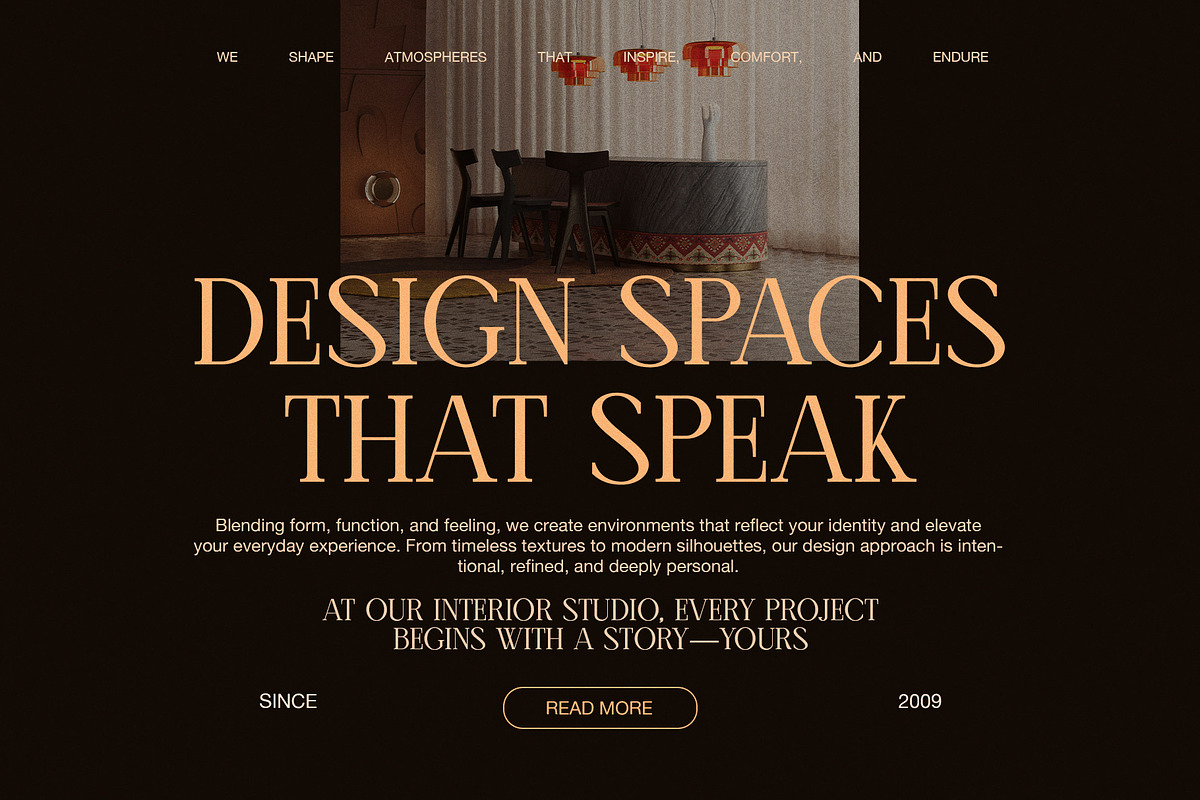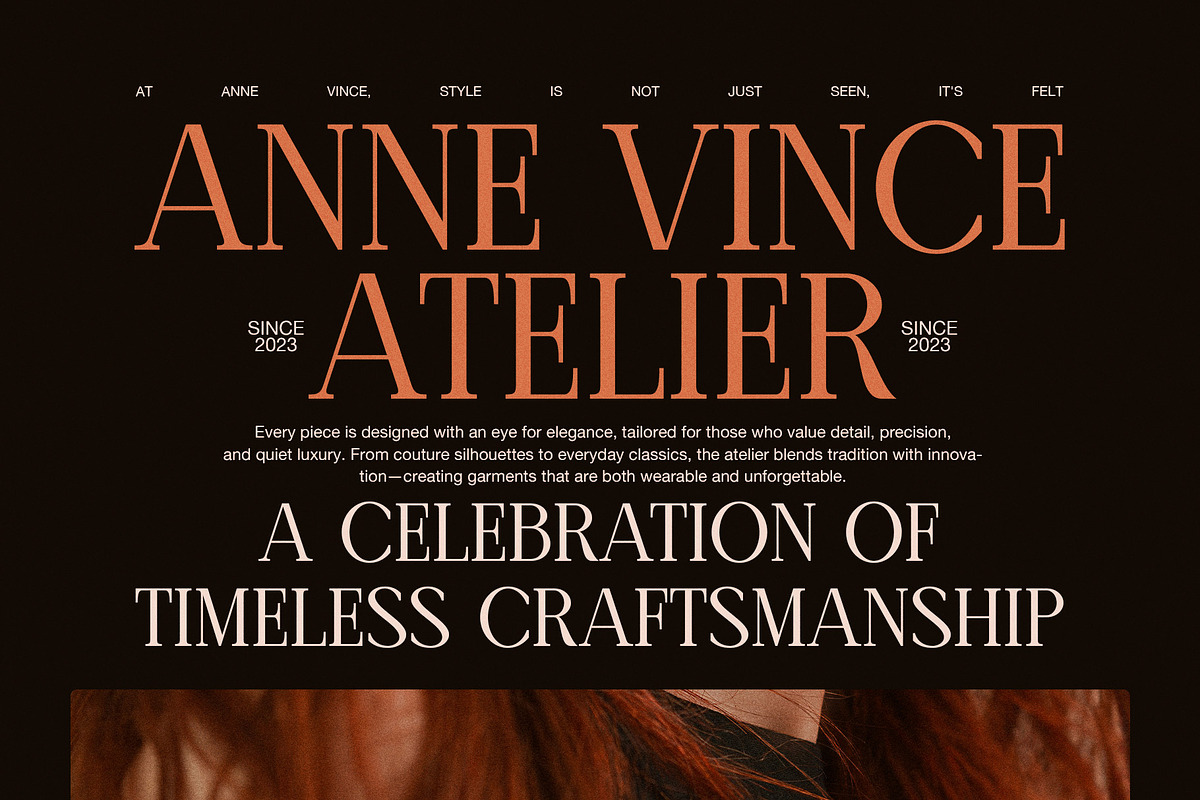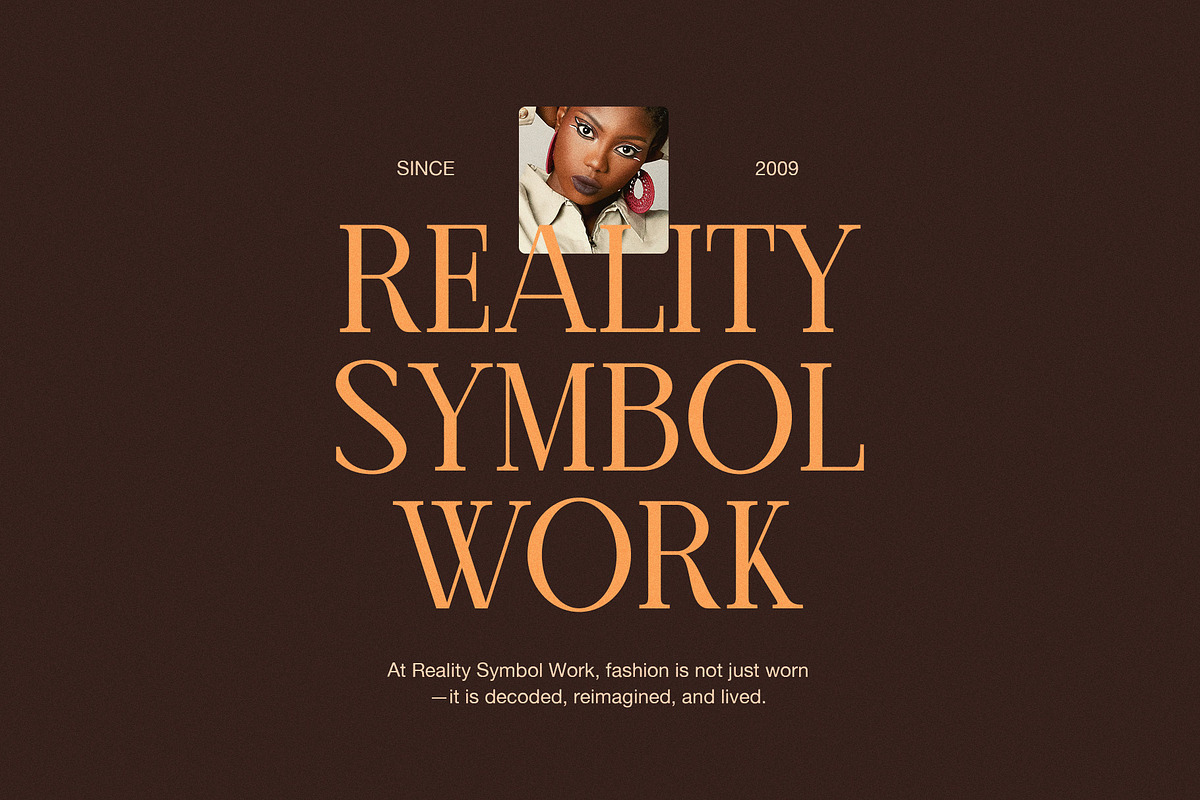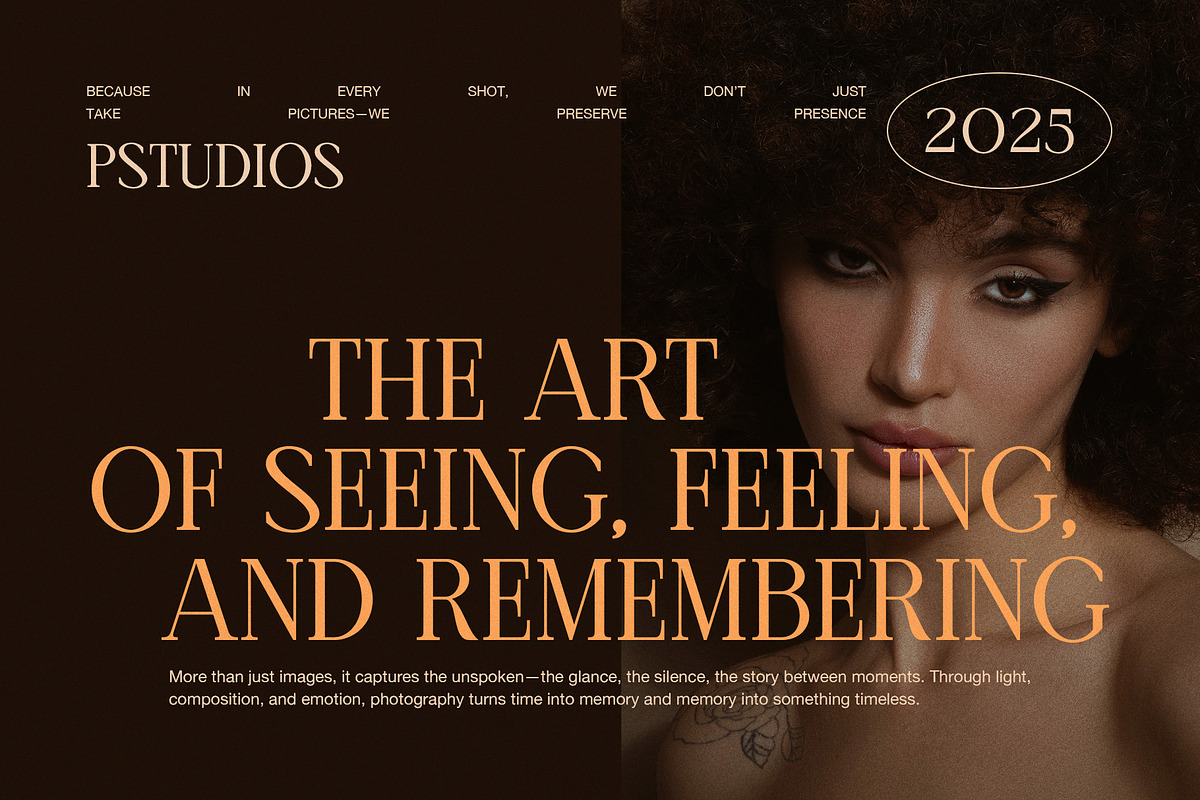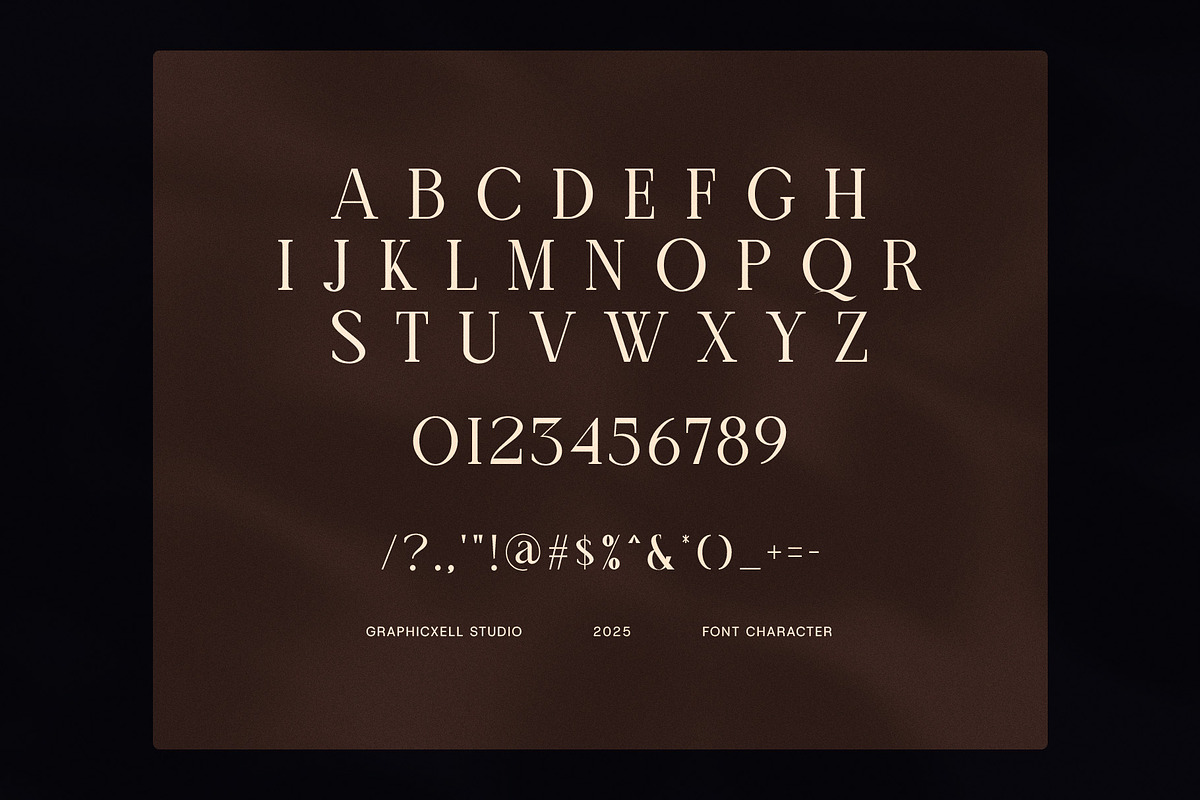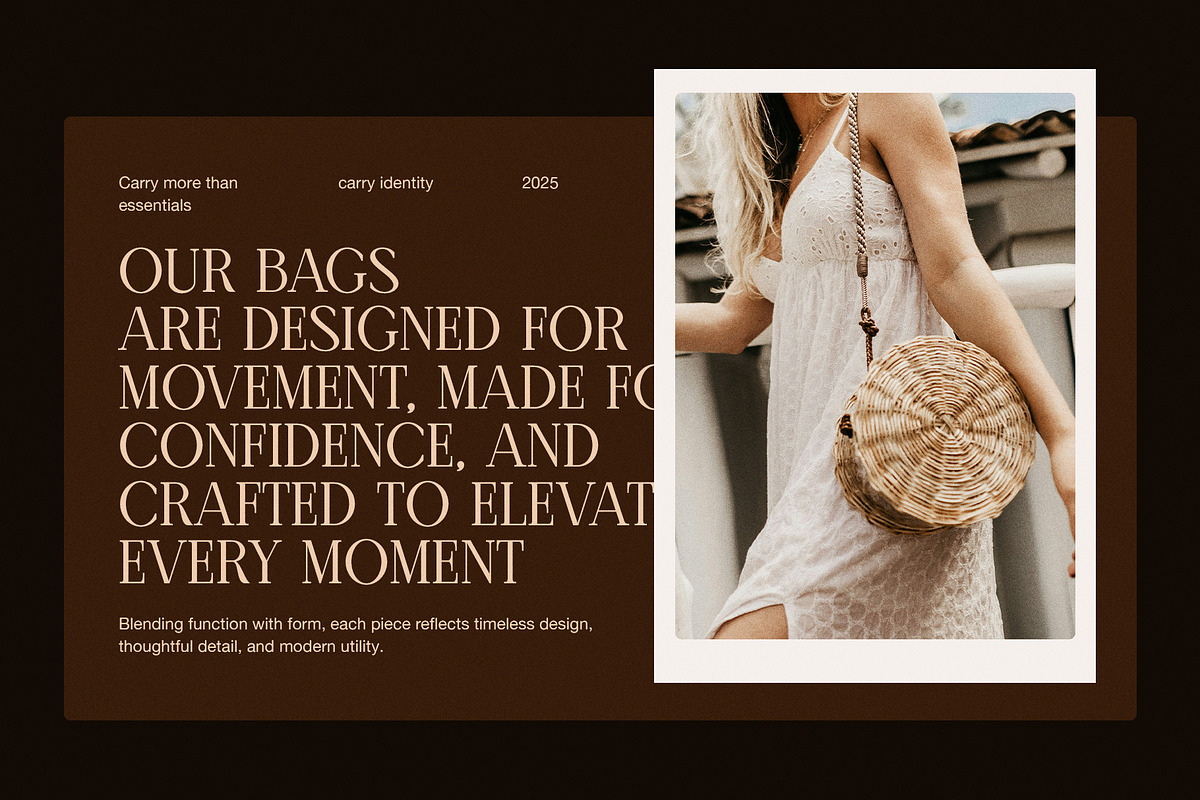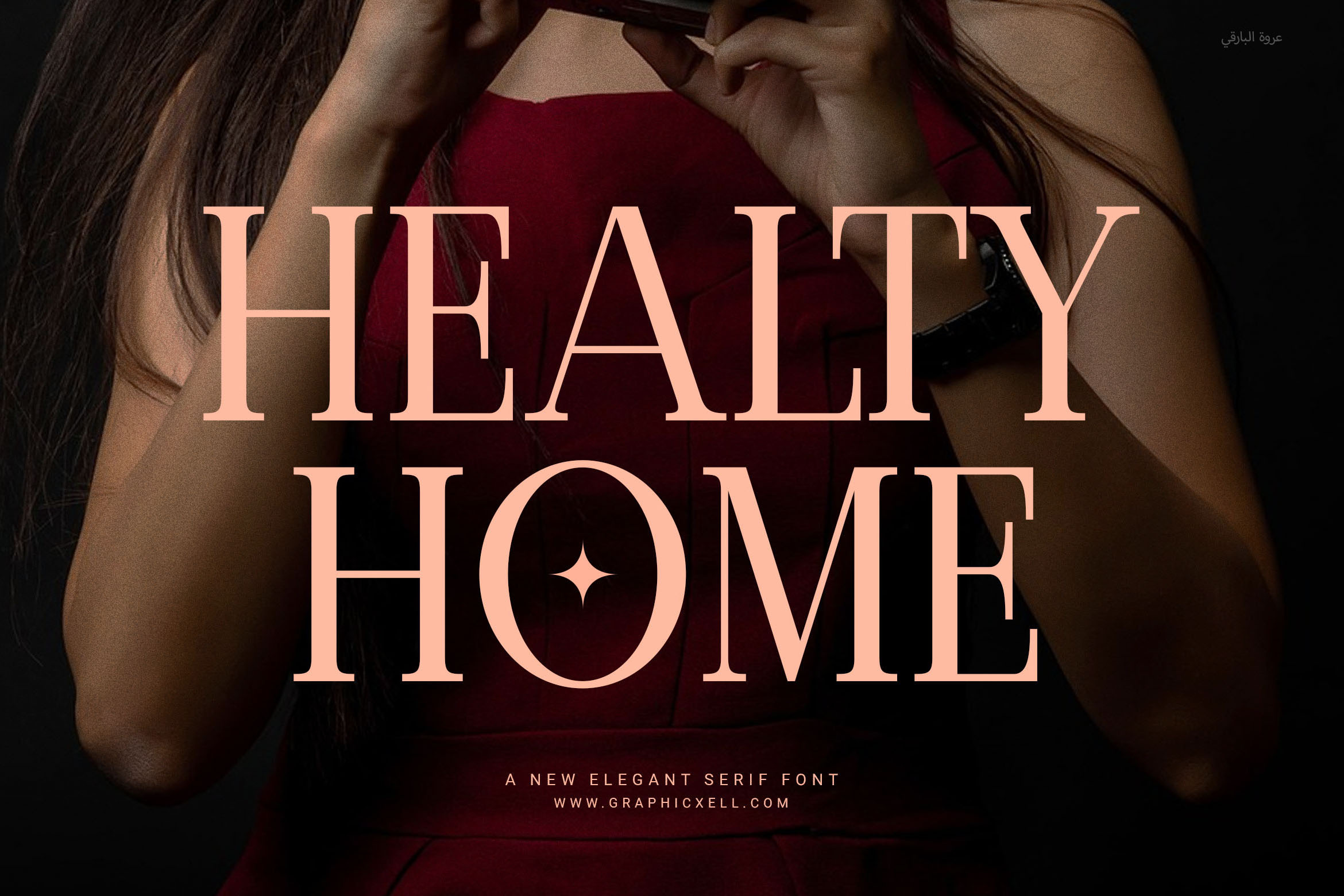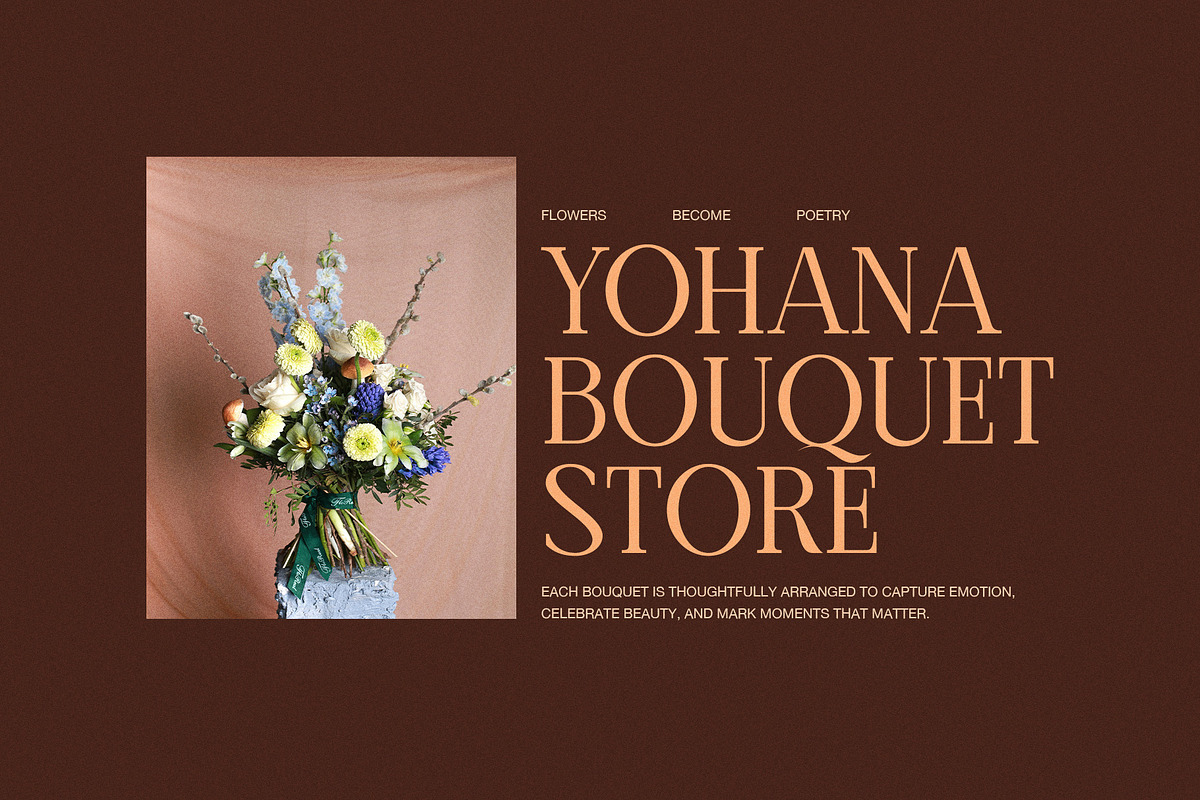
Healty Home Elegant Serif Font
Healty Home Elegant Serif Font – Stylish and Clear for Your Branding
Healty Home Elegant Serif Font is a modern serif font made to give your brand a neat and elegant look. Its smooth and balanced letters fit well in many designs. Whether you create logos, websites, magazines, or product labels, Healty Home will make your work look clean and professional.
This font also has special ligatures that help letters join nicely and make your text easier to read. Because it works well for many industries, you can use it for boutiques, food brands, ads, and more.
You can use Healty Home for:
Business logos and brand names
Website titles and online layouts
Magazine pages and articles
Product packaging and labels
Ads and promotional designs
Fashion and food brands
In short, Healty Home Elegant Serif Font is not just a font—it’s a smart tool that adds style and polish to every design.